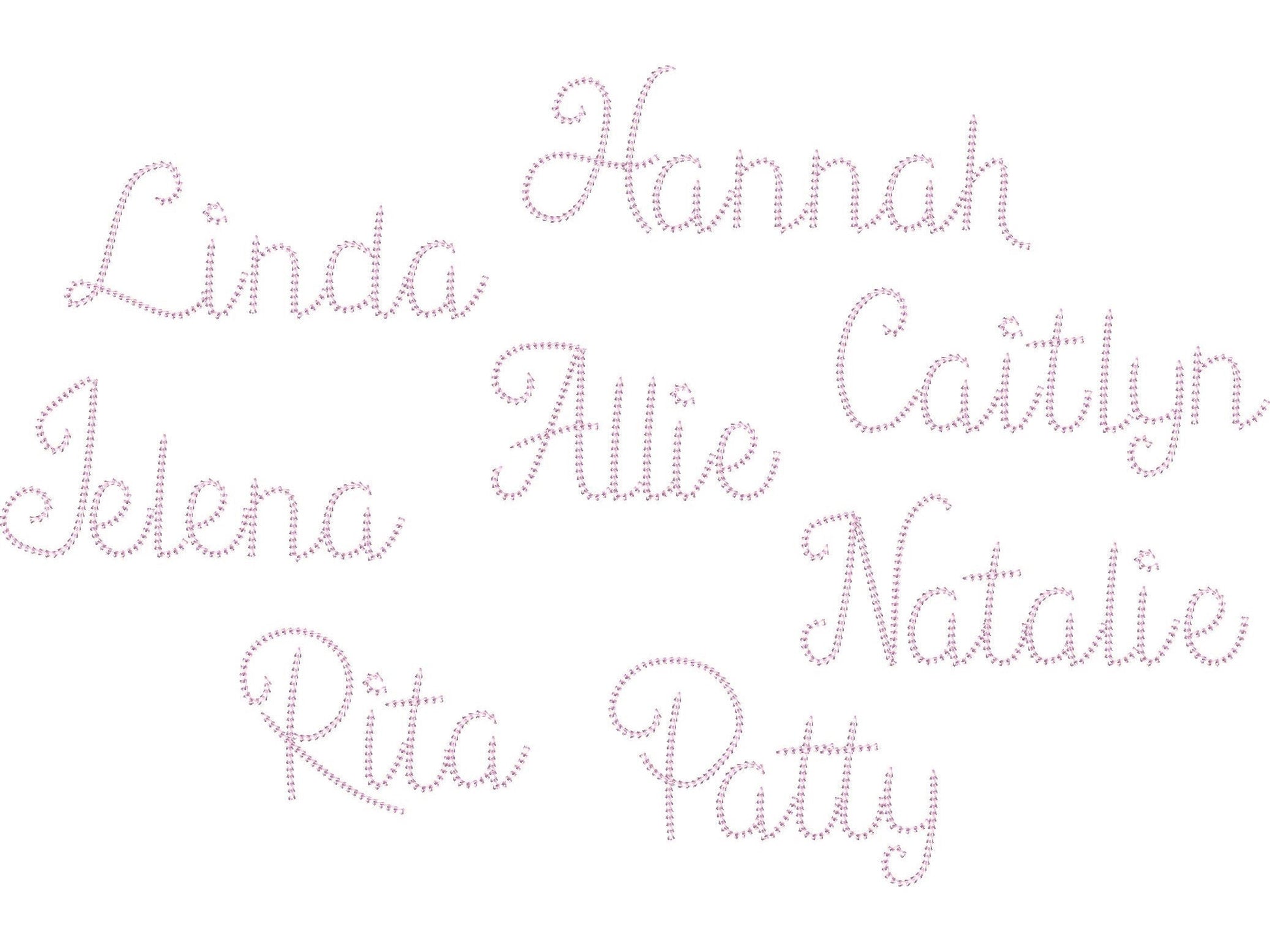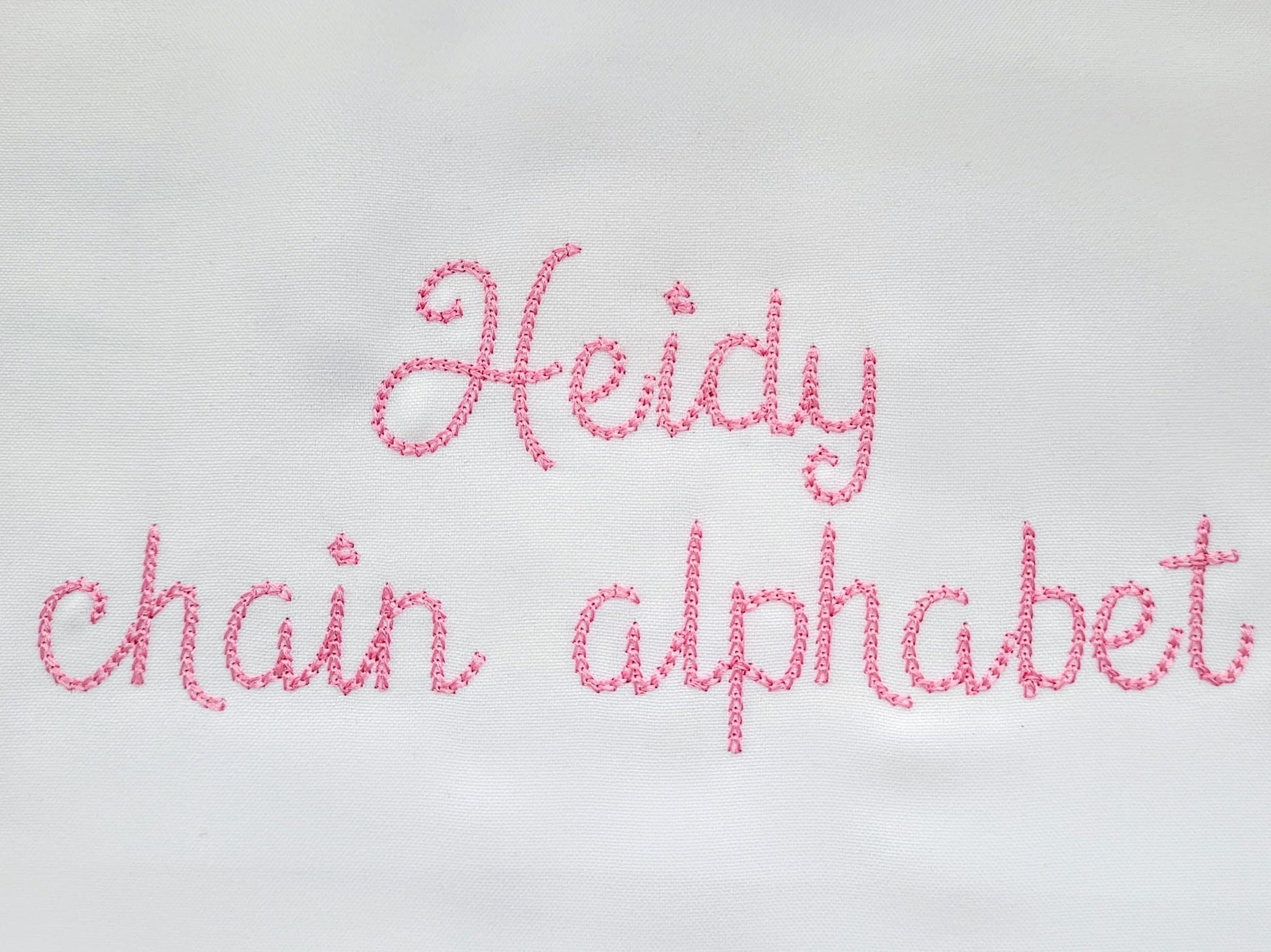
Or click to open the linkA quick, light handwritten chain stitch script with a playful linked look. Great for kids' names, shirts and small gifts.
Uppercase and lowercase letters, numbers 0 to 9, an ampersand, comma and period. Six sizes: 1.5, 1.8, 2.2, 2.7, 3.2 and 3.9 inches.